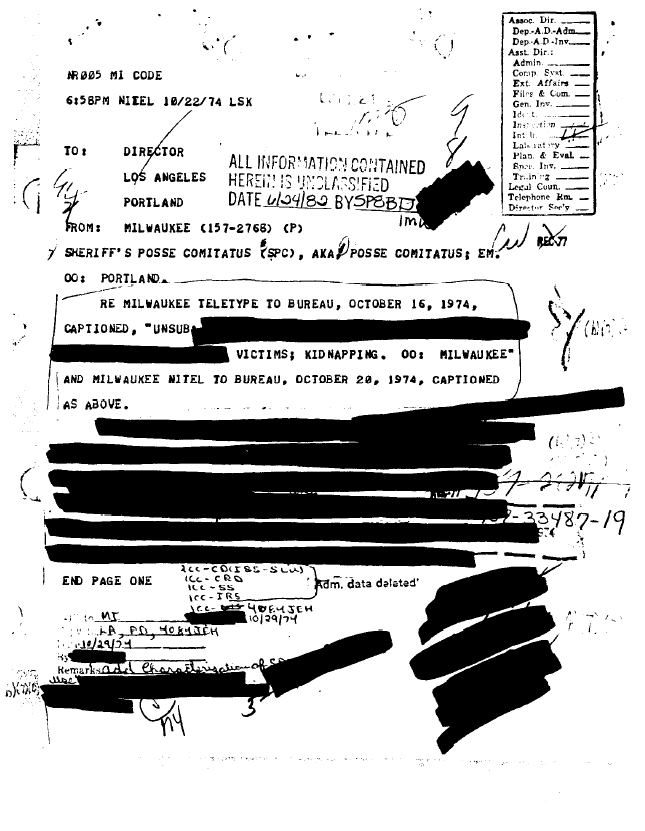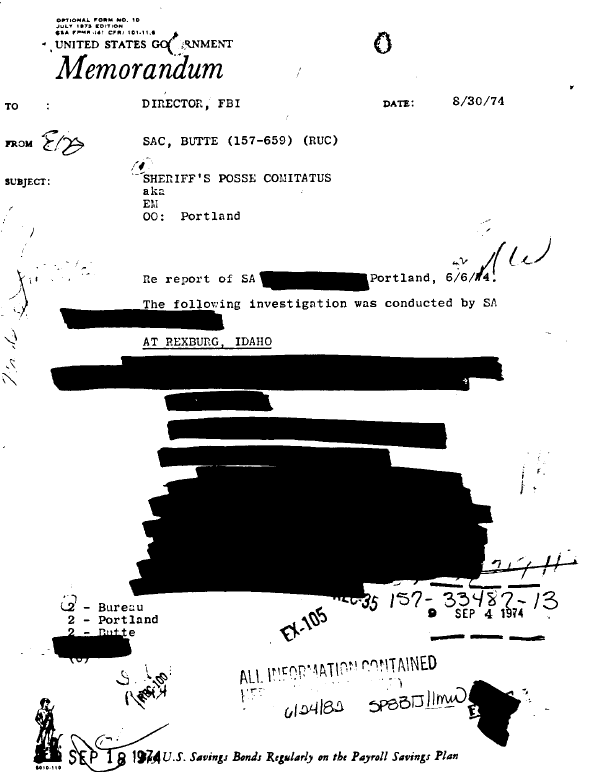
Old Fbi Fonts . Web fbi old report font. Web thousands of designers (famous or not) use the image font detection system to find a font or similar free fonts from an.
FBI Old Report font from online-fonts.com
Check the author license before using font. Fancy typewriter destroy view all (+) download font. The fbi old report regular font was designed by steve cloutier.
FBI Old Report font
Web licensed for commercial use. The fbi old report regular font was designed by steve cloutier. Web fbi old report font. Since then, it has been downloaded 31,679 times.
Old Fbi Fonts - Fancy typewriter destroy view all (+) download font. The fbi old report regular font was designed by steve cloutier. Web licensed for commercial use. Web fbi old report font is a typewriter font and was created on sep 11, 2012. Web fbi old report regular is the perfect font for all your fun designs.
Old Fbi Fonts - 46,681 downloads (7 yesterday) donationware. Web fbi old report by cloutierfontes. Check the author license before using font. Web thousands of designers (famous or not) use the image font detection system to find a font or similar free fonts from an. Web fbi old report font is a typewriter font and was created on sep 11, 2012.
Old Fbi Fonts - Check the author license before using font. Web fbi old report font is a typewriter font and was created on sep 11, 2012. 46,681 downloads (7 yesterday) donationware. Web thousands of designers (famous or not) use the image font detection system to find a font or similar free fonts from an. Web fbi old report regular is the perfect font.
Old Fbi Fonts - Since then, it has been downloaded 31,679 times. Check the author license before using font. 46,681 downloads (7 yesterday) donationware. Web fbi old report font is a typewriter font and was created on sep 11, 2012. Web licensed for commercial use.
Old Fbi Fonts - Web fbi old report font is a typewriter font and was created on sep 11, 2012. Web fbi old report font. Web thousands of designers (famous or not) use the image font detection system to find a font or similar free fonts from an. Web fbi old report regular is the perfect font for all your fun designs. Web fbi.
Old Fbi Fonts - Web fbi old report font is a typewriter font and was created on sep 11, 2012. Check the author license before using font. 46,681 downloads (7 yesterday) donationware. Fancy typewriter destroy view all (+) download font. The fbi old report regular font was designed by steve cloutier.
Old Fbi Fonts - Since then, it has been downloaded 31,679 times. Web fbi old report font. Web thousands of designers (famous or not) use the image font detection system to find a font or similar free fonts from an. Fancy typewriter destroy view all (+) download font. Web licensed for commercial use.
Old Fbi Fonts - Web fbi old report font. Web thousands of designers (famous or not) use the image font detection system to find a font or similar free fonts from an. Web fbi old report font is a typewriter font and was created on sep 11, 2012. Web licensed for commercial use. Since then, it has been downloaded 31,679 times.
Old Fbi Fonts - 46,681 downloads (7 yesterday) donationware. The fbi old report regular font was designed by steve cloutier. Web licensed for commercial use. Web fbi old report by cloutierfontes. Fancy typewriter destroy view all (+) download font.
Old Fbi Fonts - The fbi old report regular font was designed by steve cloutier. Web fbi old report regular is the perfect font for all your fun designs. Web licensed for commercial use. Fancy typewriter destroy view all (+) download font. Web fbi old report font is a typewriter font and was created on sep 11, 2012.
Old Fbi Fonts - The fbi old report regular font was designed by steve cloutier. Web licensed for commercial use. Web fbi old report by cloutierfontes. Web fbi old report font. Web fbi old report font.
Old Fbi Fonts - Web fbi old report font is a typewriter font and was created on sep 11, 2012. Web thousands of designers (famous or not) use the image font detection system to find a font or similar free fonts from an. 46,681 downloads (7 yesterday) donationware. Fancy typewriter destroy view all (+) download font. The fbi old report regular font was designed.
Old Fbi Fonts - 46,681 downloads (7 yesterday) donationware. Since then, it has been downloaded 31,679 times. Web fbi old report by cloutierfontes. Web fbi old report font is a typewriter font and was created on sep 11, 2012. Web fbi old report font.
Old Fbi Fonts - Web fbi old report regular is the perfect font for all your fun designs. Fancy typewriter destroy view all (+) download font. Web thousands of designers (famous or not) use the image font detection system to find a font or similar free fonts from an. Web fbi old report by cloutierfontes. Check the author license before using font.
Old Fbi Fonts - 46,681 downloads (7 yesterday) donationware. The fbi old report regular font was designed by steve cloutier. Web fbi old report font. Check the author license before using font. Web licensed for commercial use.